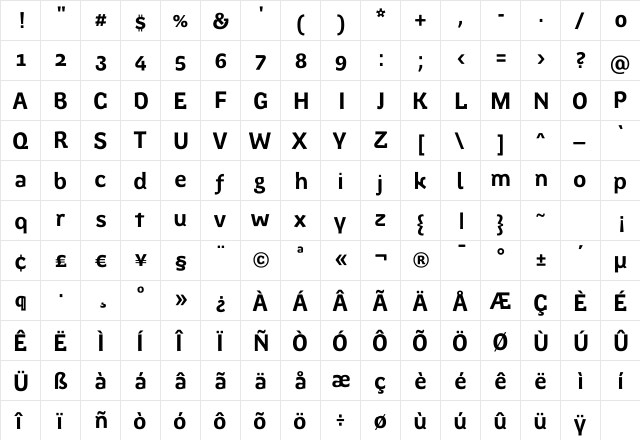
SpotkaBold Regular
Design Context for SpotkaBold Typeface
SpotkaBold offers clean, dependable letterforms without strong stylistic allegiance, making it a practical choice for designers who need flexibility. Its bold stroke weight gives it real presence on the page.
Pro Tip: Pair SpotkaBold with a font of contrasting weight or personality to build a more expressive typographic hierarchy.